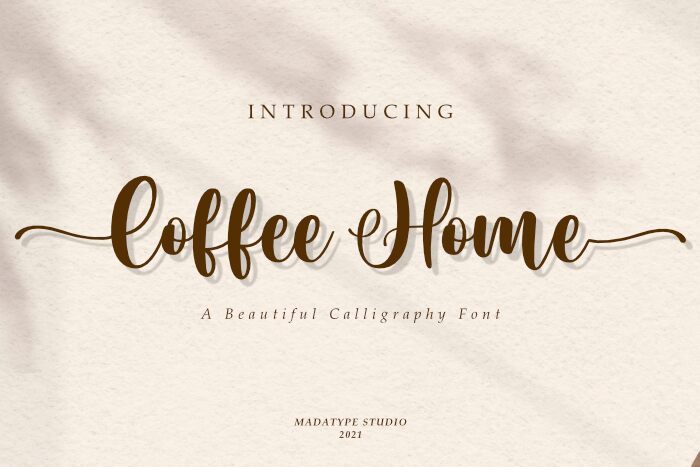
Coffee Home is a bold calligraphy font created by the talented Andri Ardianto and Madatype Studio. It has an elegant, timeless look that makes it perfect for a variety of creative projects and designs. From wedding invitations to graphic design, Coffee Home can be used to add a unique touch of style. Its beautiful curves and graceful lines make it ideal for logos and headlines, adding an eye-catching aesthetic to any piece.
Coffee Home
Andri Ardianto & Madatype Studio